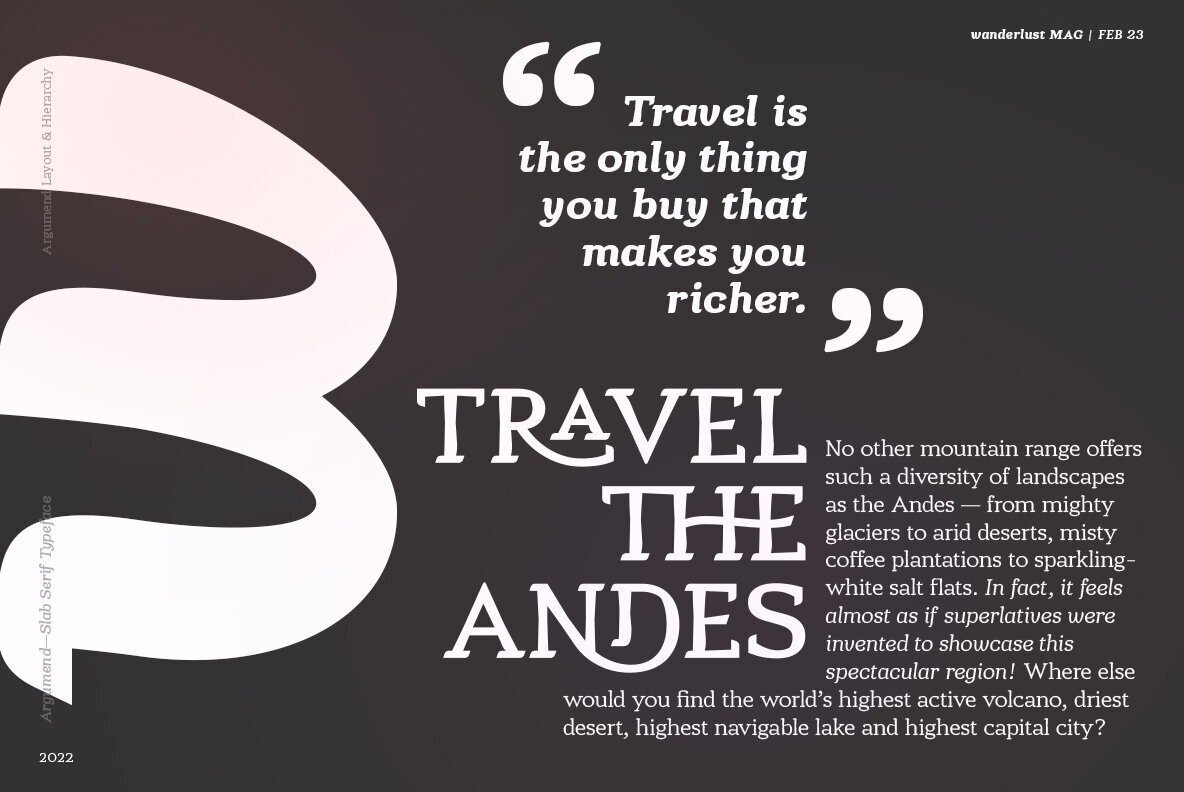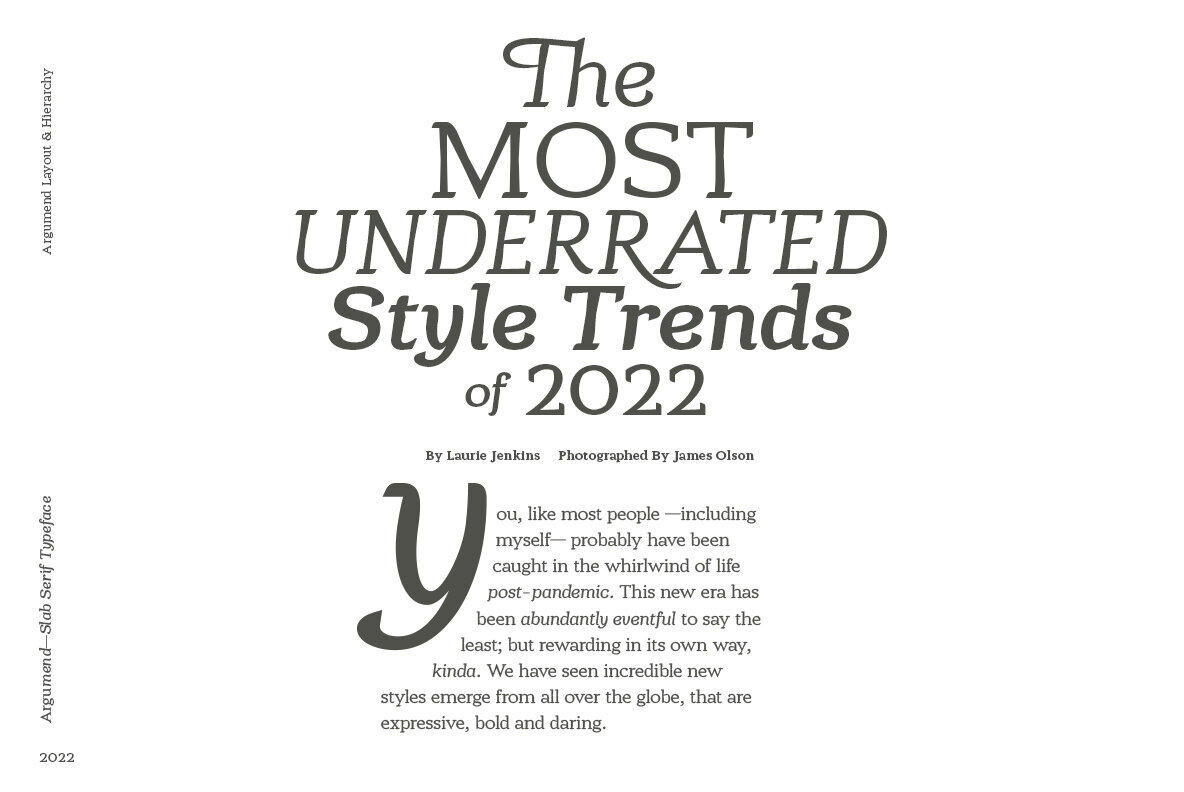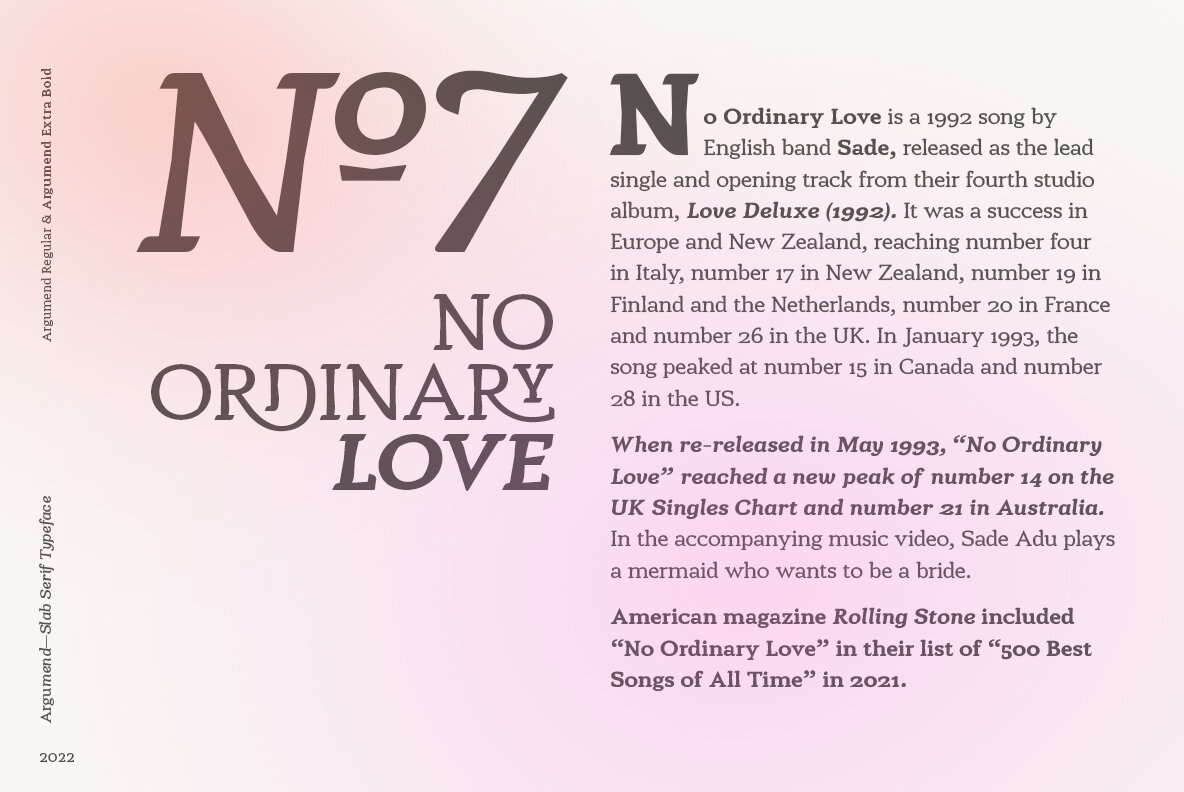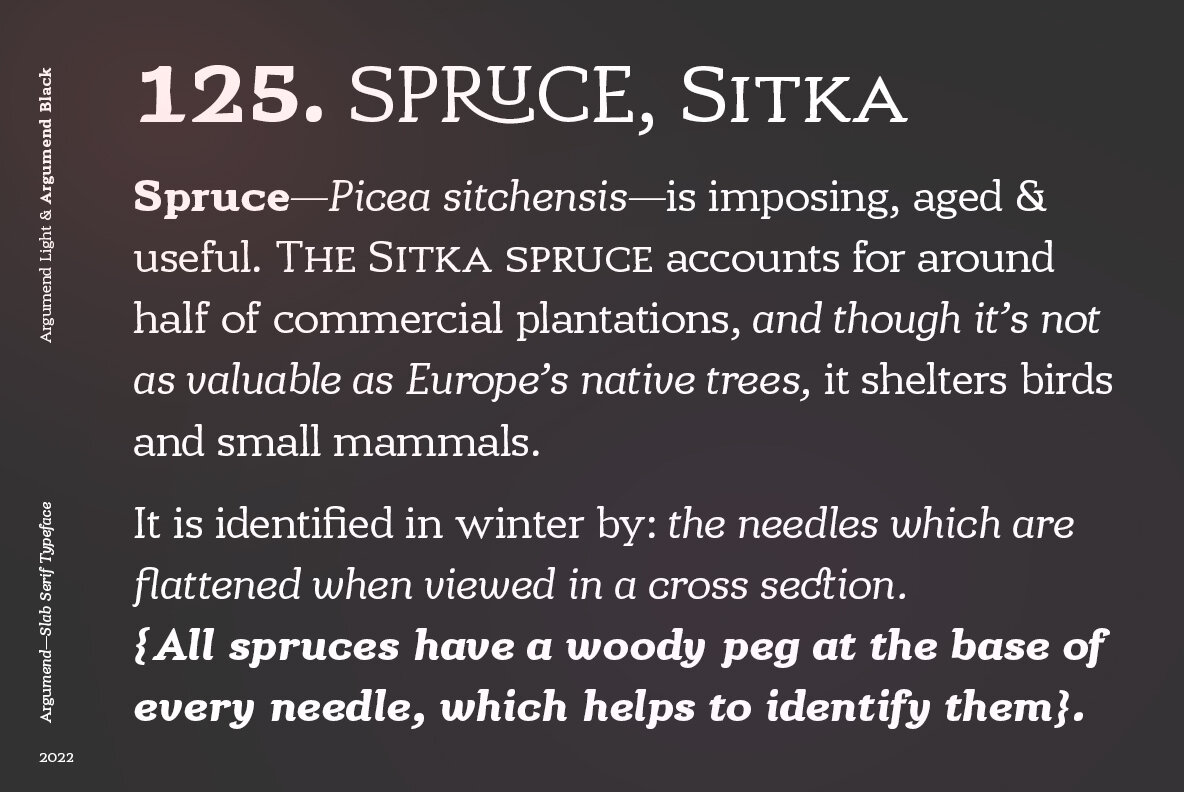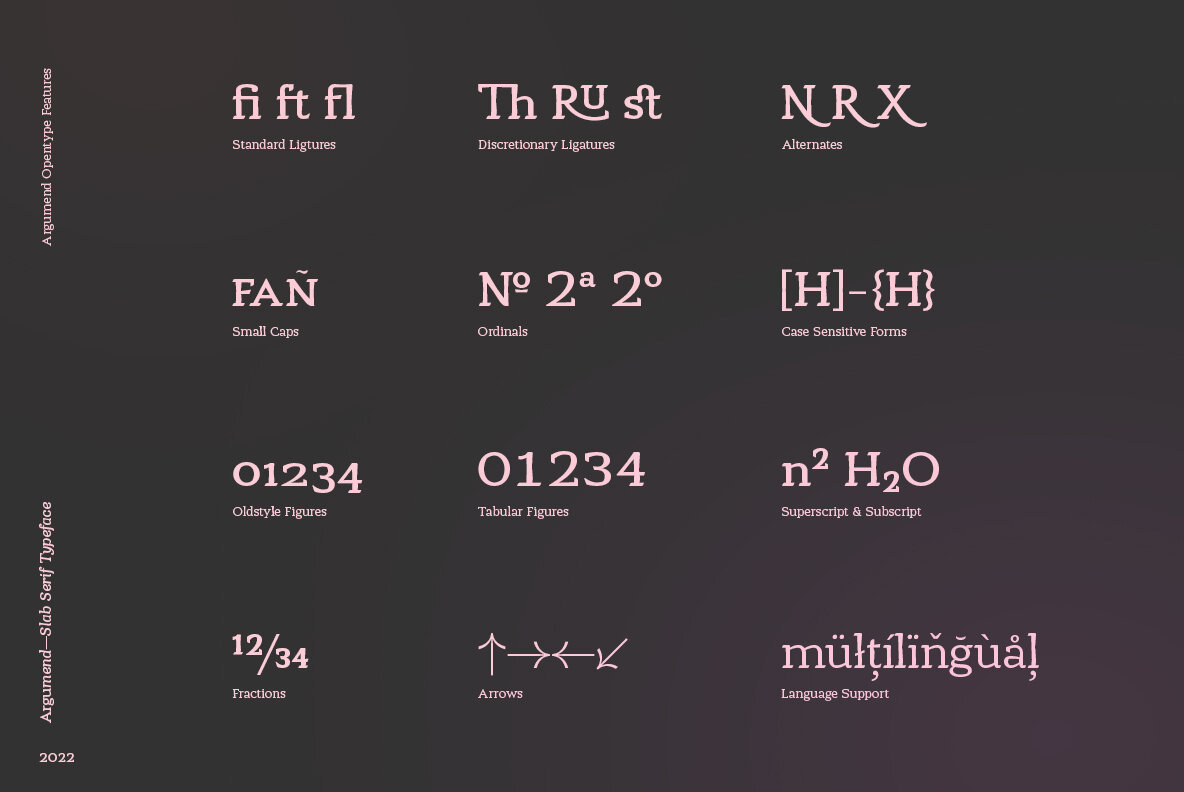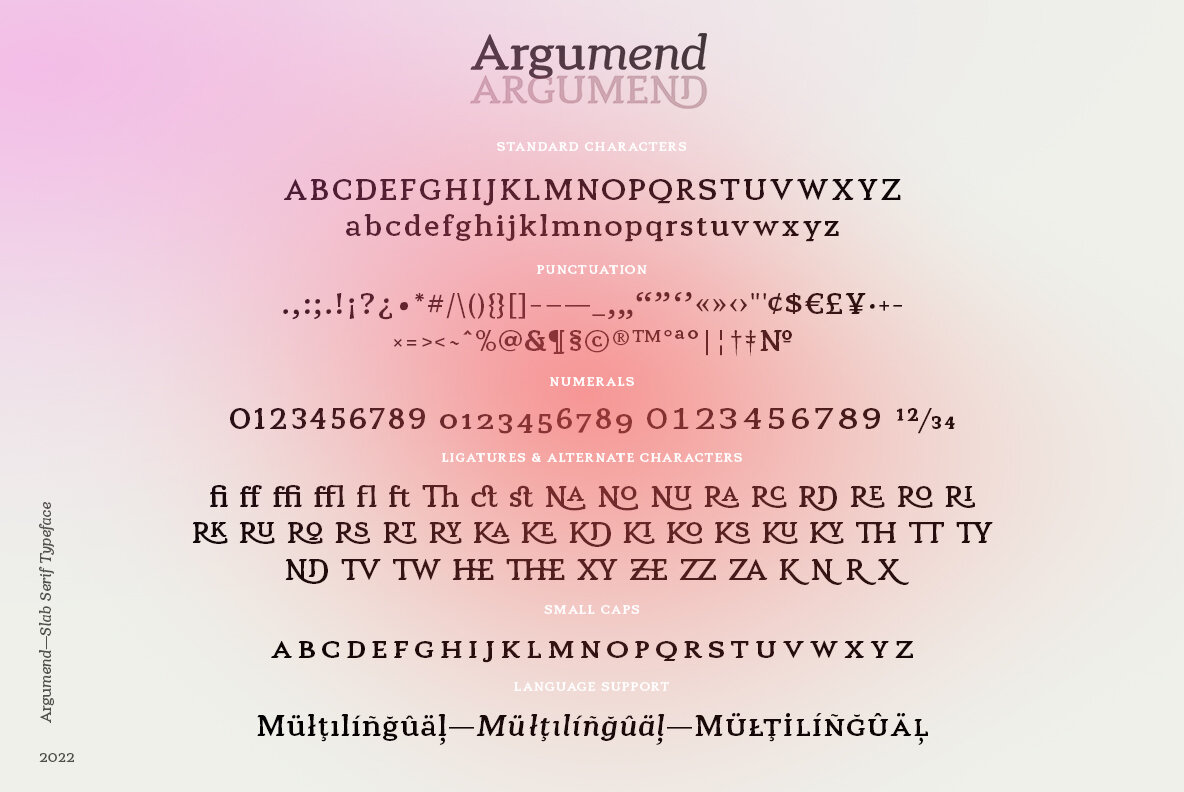
Argumend Font
Meet Argumend, a versatile slab serif typeface boasting an extensive range of OpenType features. Craft bold and eye-catching headlines using its uppercase ligatures, or take advantage of its multiple weights and true italics for engaging body copy. With its rich typographic options, Argumend is designed to help you create text that commands attention and brings your projects to life.